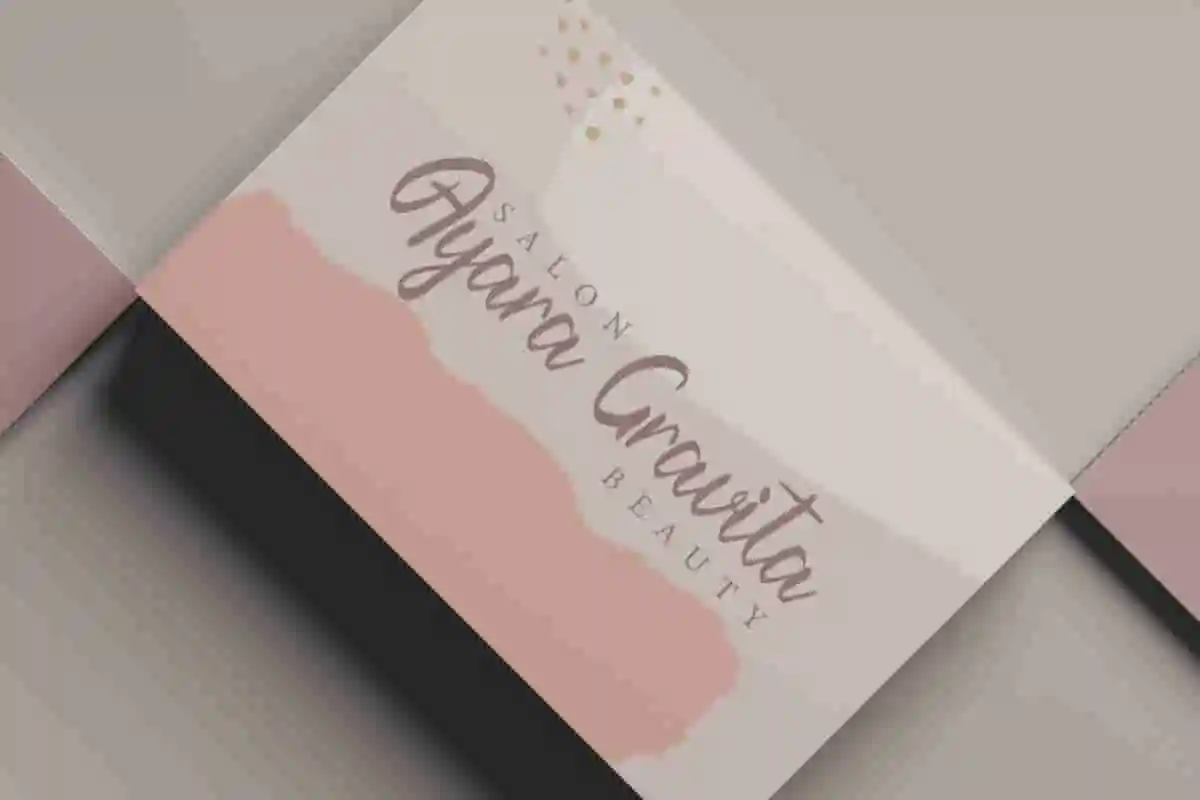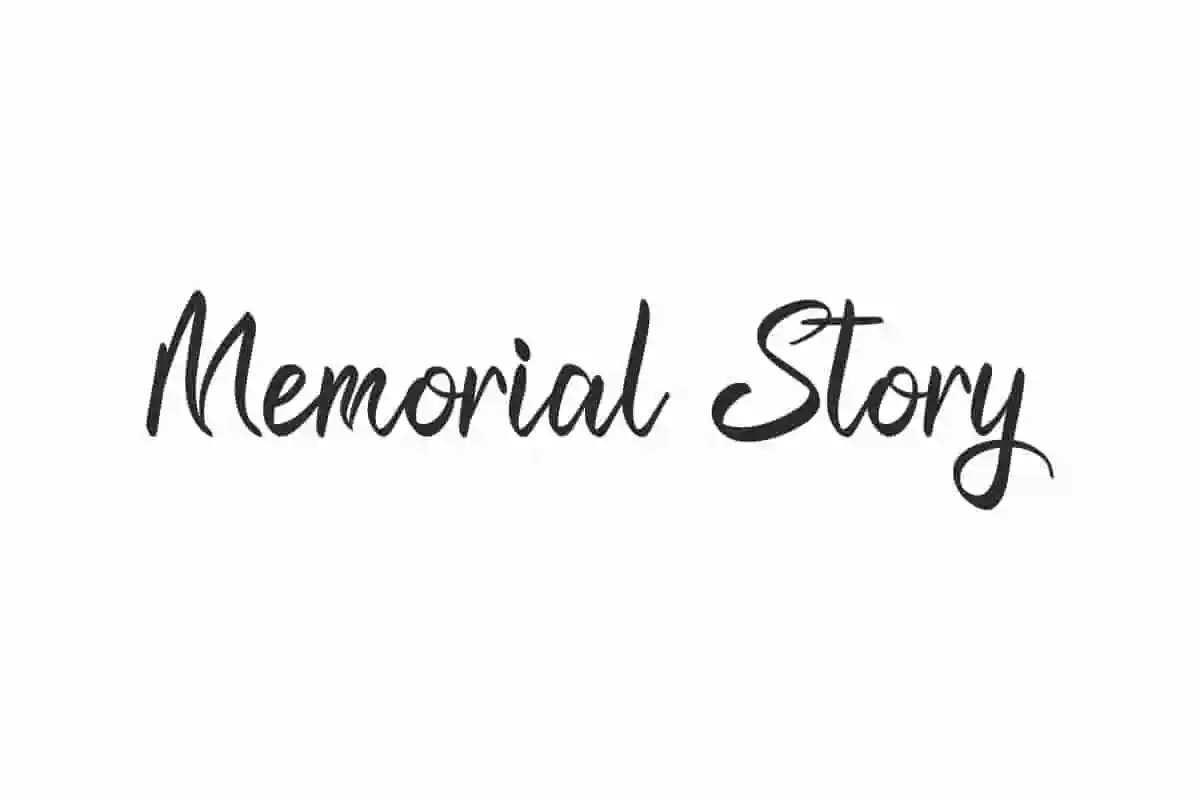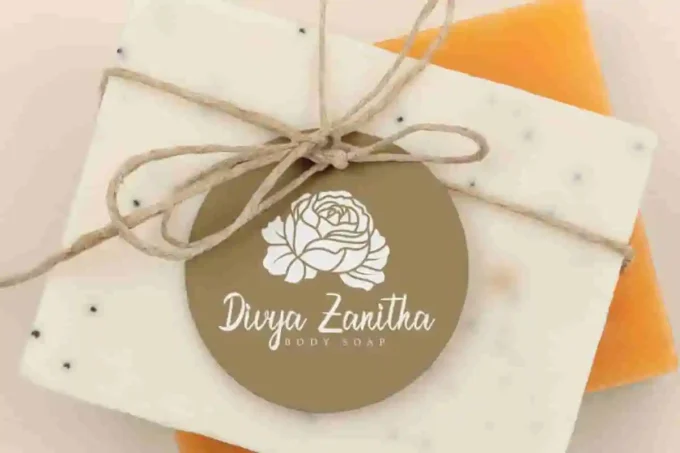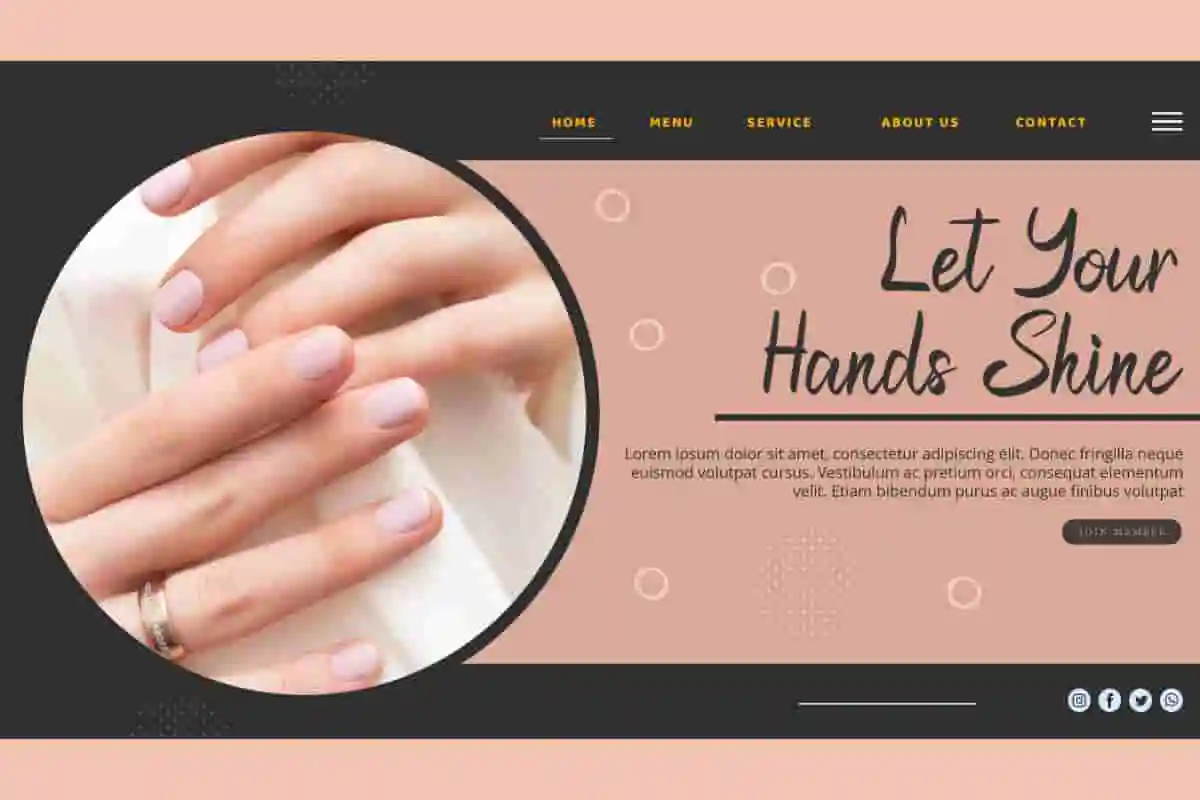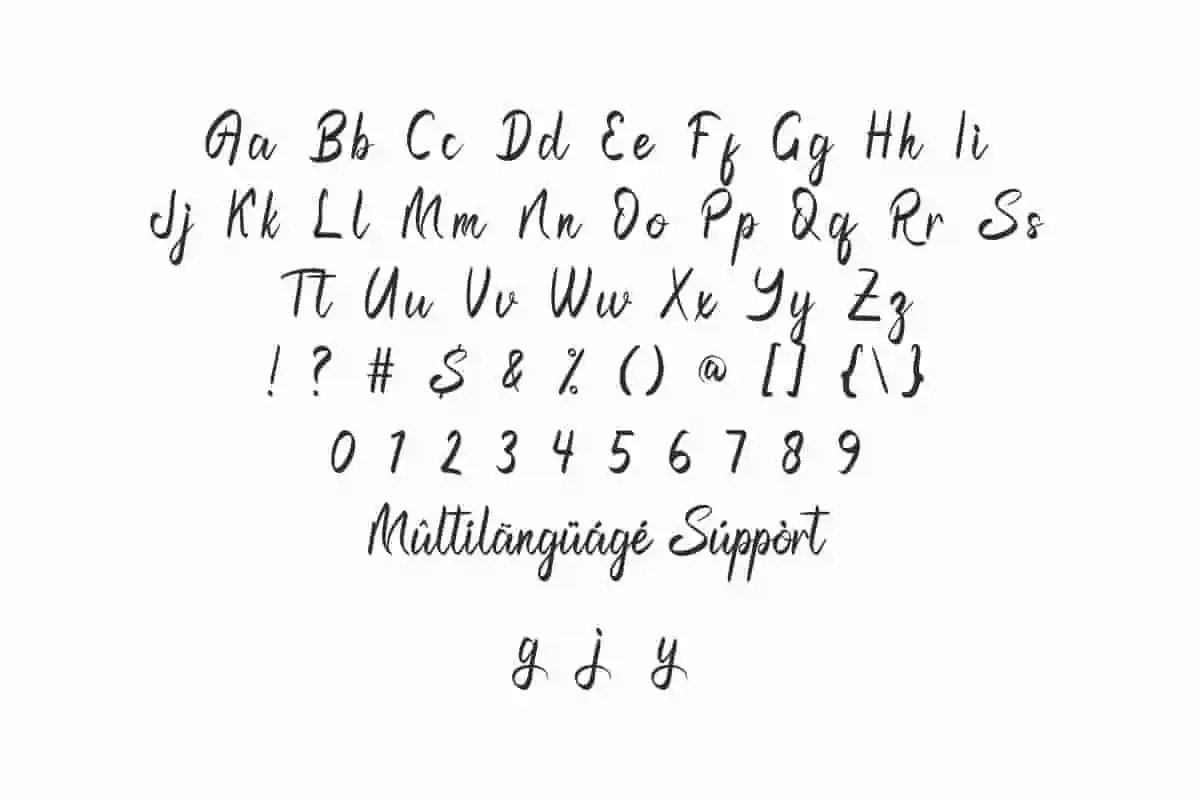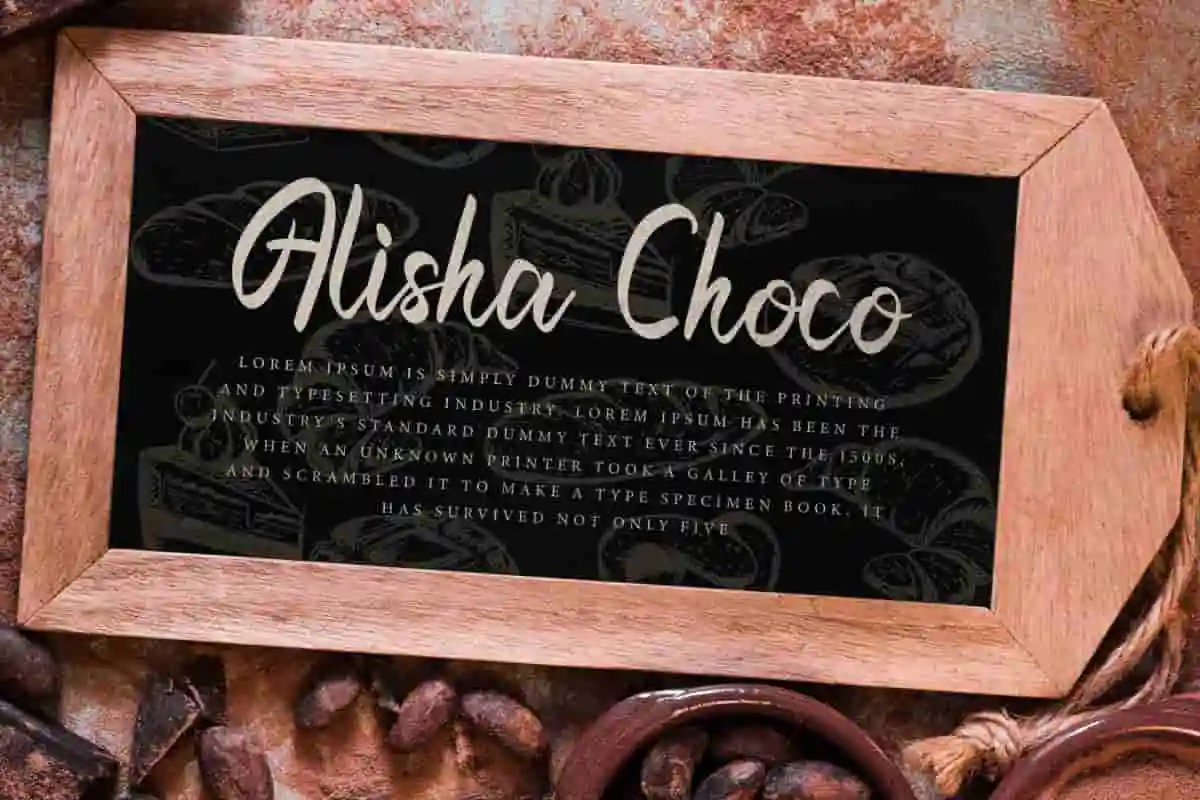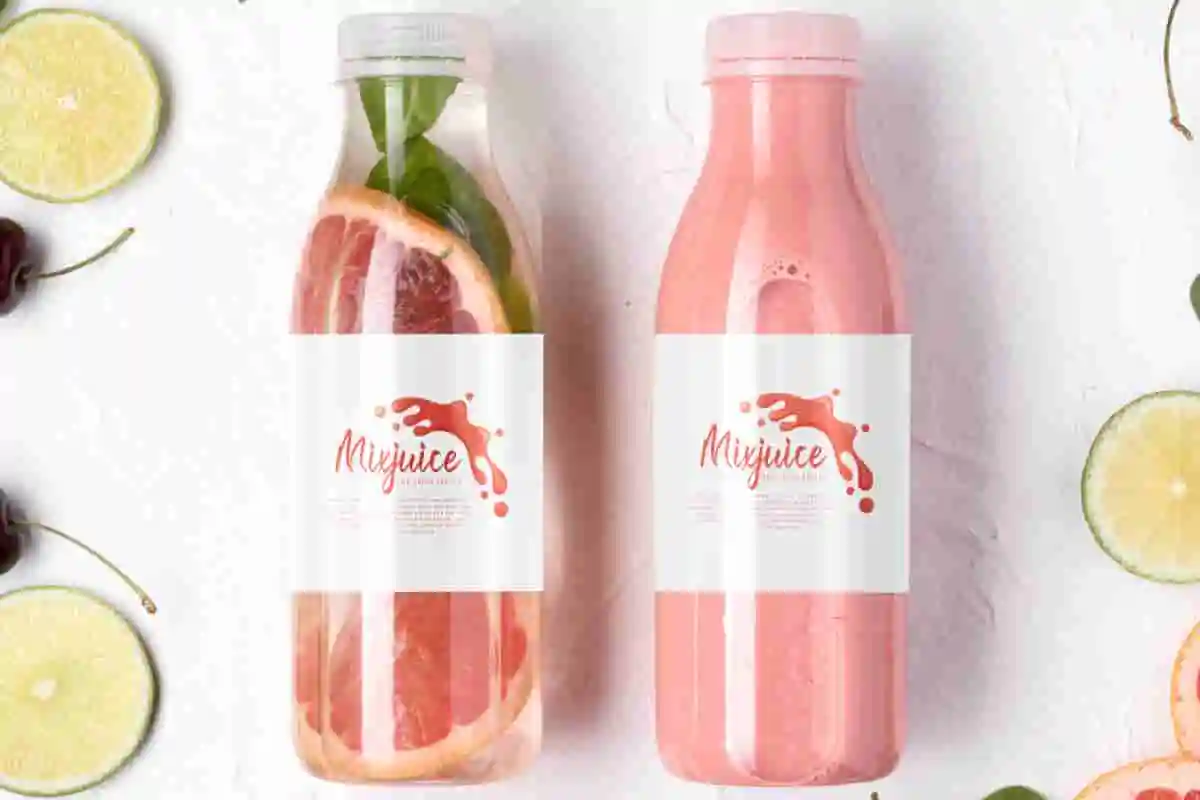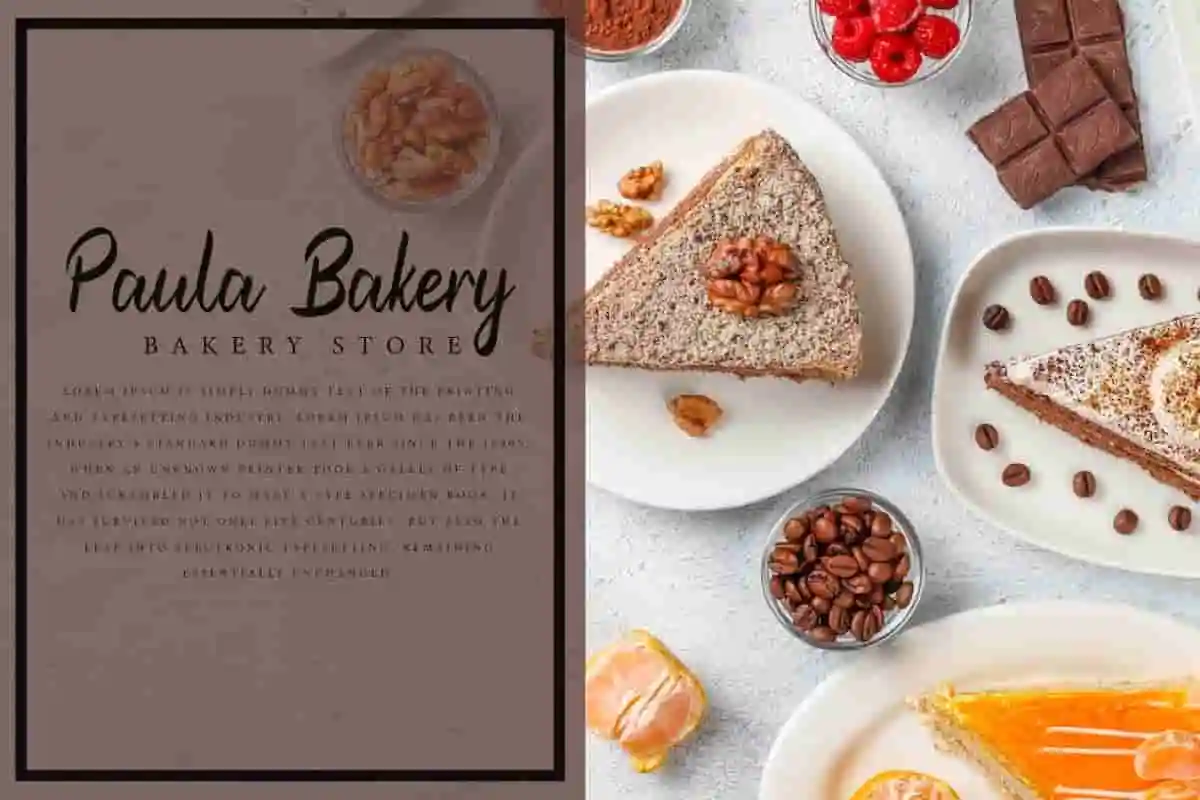
Memorial Story Font
Memorial Story Font is a beautiful timeless handwritten font that is ready to be a complementary part for bakery, business card, label, skincare, etc.
Memorial Story Font is a sweet casual handwritten font that makes you memorable. This typography has classic and natural brush strokes so it can remind you of lasting memories, created and adapted to fit your project, such as brand logo, brochure, business card, catalog, cover, invitation, label, screen print, signage, stationery, sticker, title, watermark, website, and much more!
Memorial Story Font comes with a full set of Uppercase and Lowercase Basic Characters, Number, Punctuation, Symbol. This font also features several Alternate characters to add aesthetic value to the font. Use this for your business industry such as author, bakery, chocolate, event organizer, healthy drink, nail salon, photography, printing, publishing, restaurant, skincare, wedding, etc.